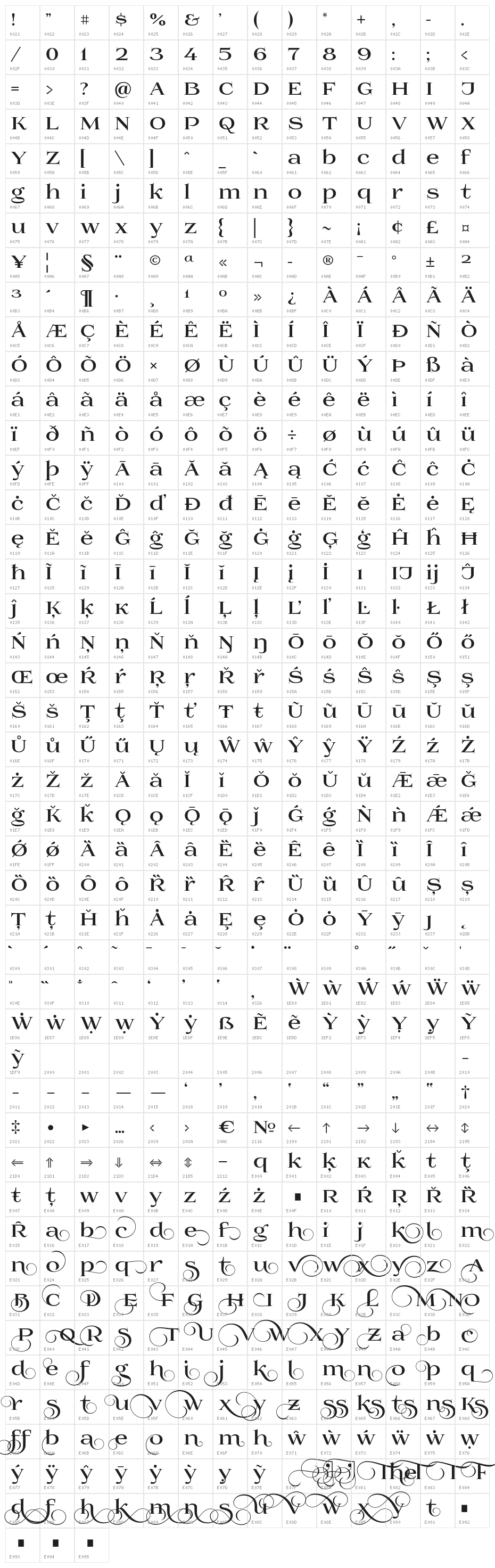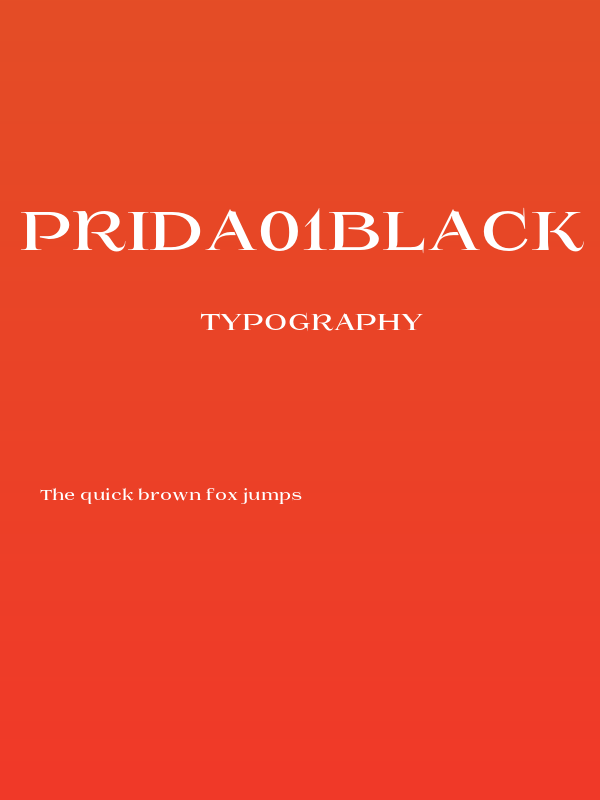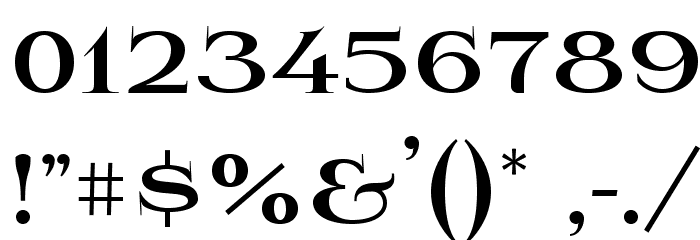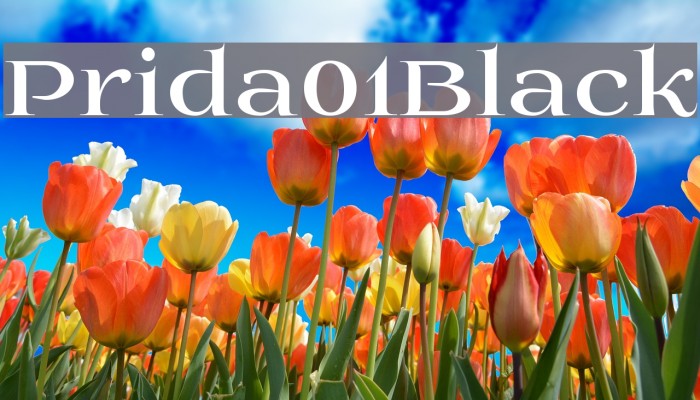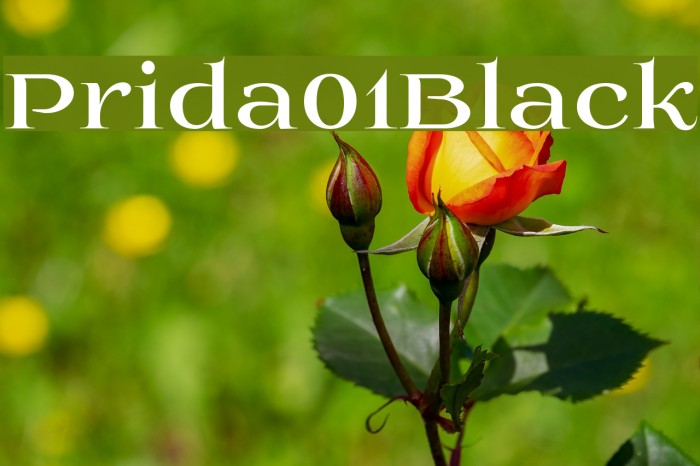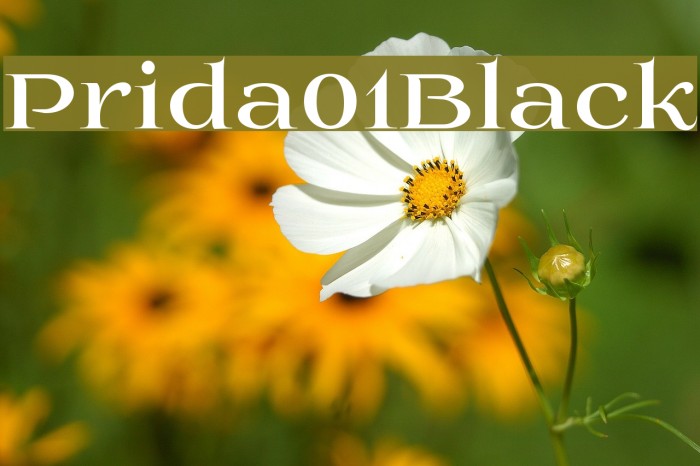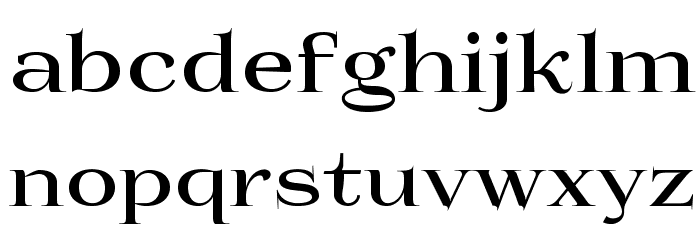
Prida01Black Font
Prida01Black Description
This font exhibits a strong and bold serif style with distinct, sharp serifs that give it a commanding presence. The uppercase letters are characterized by their wide stance and pronounced serifs, while the lowercase letters maintain a consistent style with slightly rounded edges that soften the overall look. The numerals are well-proportioned, matching the boldness of the alphabet characters. Special characters are crafted with the same attention to detail, ensuring uniformity across the font. The design is both classic and modern, making it versatile for various applications.
| Proposed Projects | Ideal for use in headlines, branding, editorial design, and any project requiring a strong, authoritative typeface. |